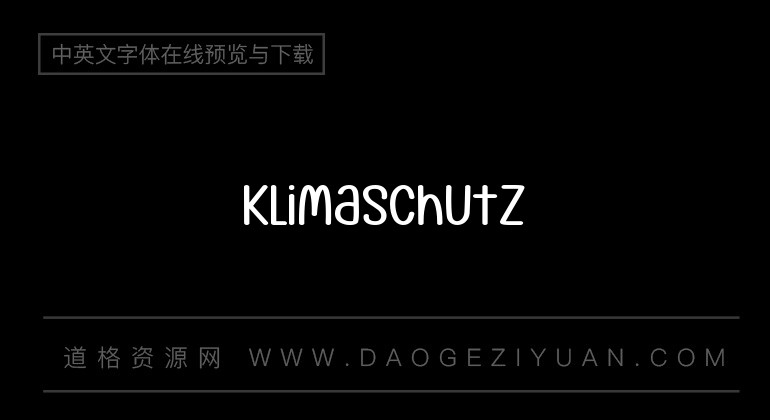
Klimaschutz is a typeface designed by a German designer, Felix Braden. The word "Klimaschutz" means "climate protection" in German. The font was specifically created to be used for climate change-related communications and materials. The Klimaschutz typeface features a modern, clean, and simple design. It is highly legible and easy to read, even at small sizes. The font includes a full set of uppercase and lowercase letters, as well as numerals and punctuation marks. The Klimaschutz typeface was developed as a part of a campaign for climate protection in Germany. It was released under the Open Font License, which means that it is free to use, share, and modify. The font has been used by various organizations and companies to promote climate change awareness and action. Overall, the Klimaschutz typeface is an excellent choice for anyone looking to add a professional and modern touch to their climate change-related materials.内容介绍
Klimaschutz是一款非常不错的手写艺术字体,具有很好的视觉感,适合于文化类的宣传设计、商业类品牌的广告和产品包装设计以及个性化文字排版等较多场景。